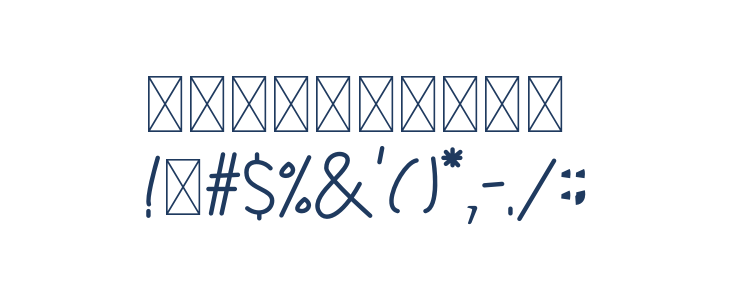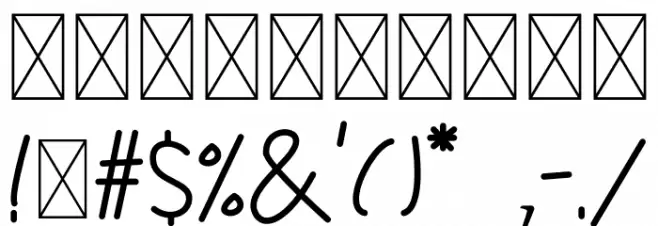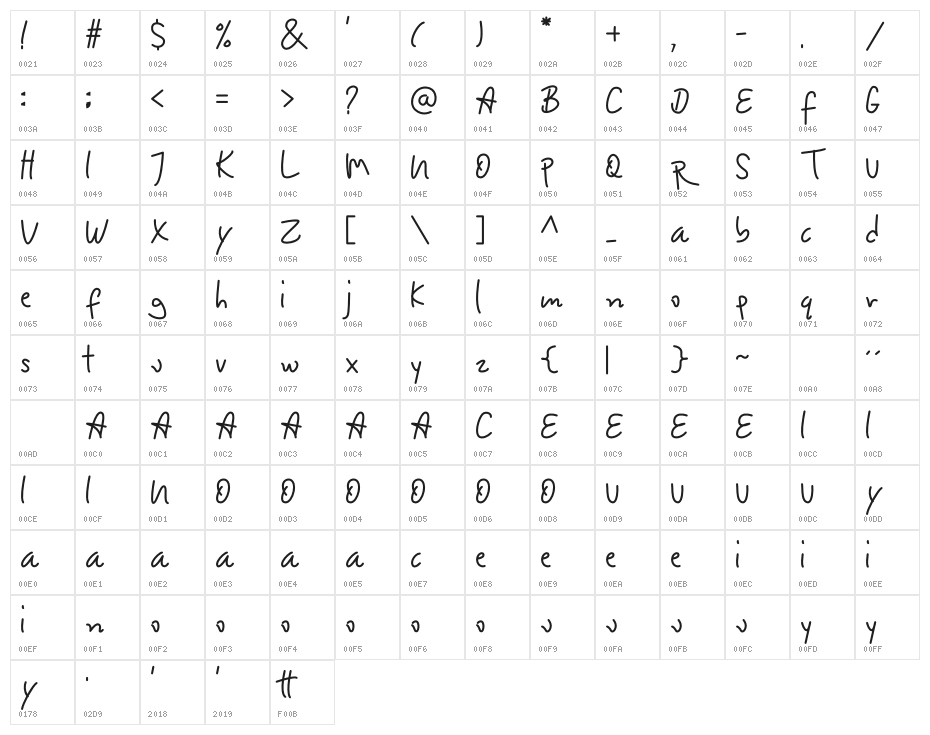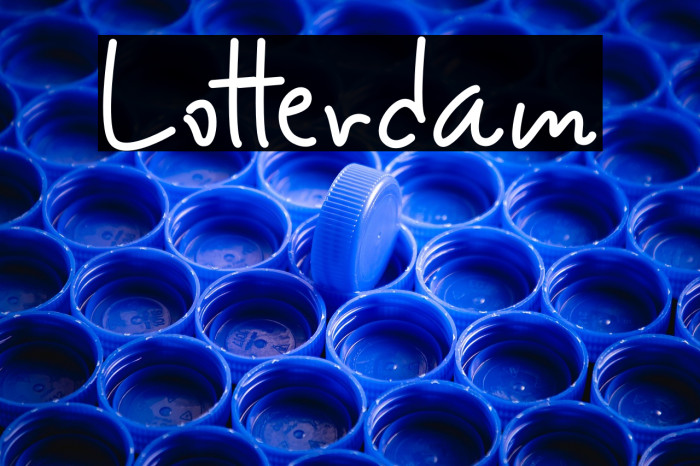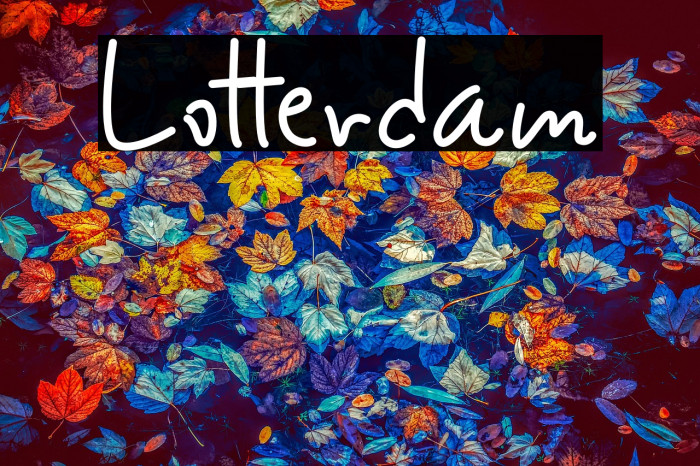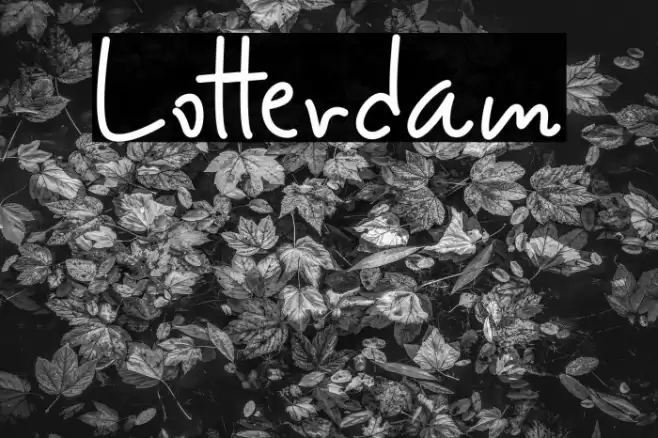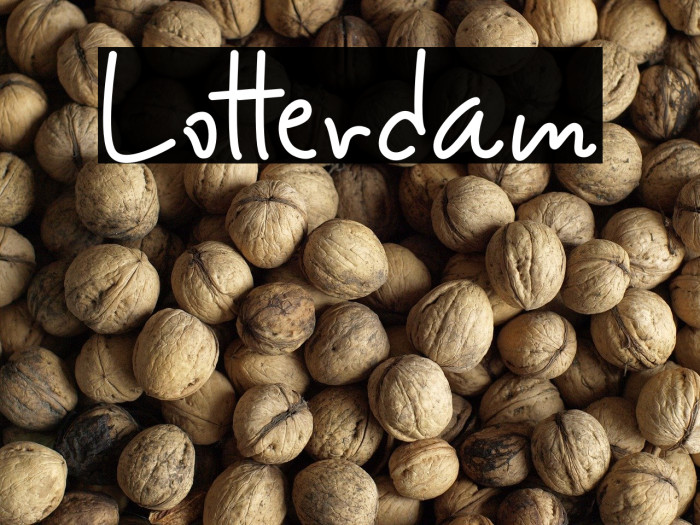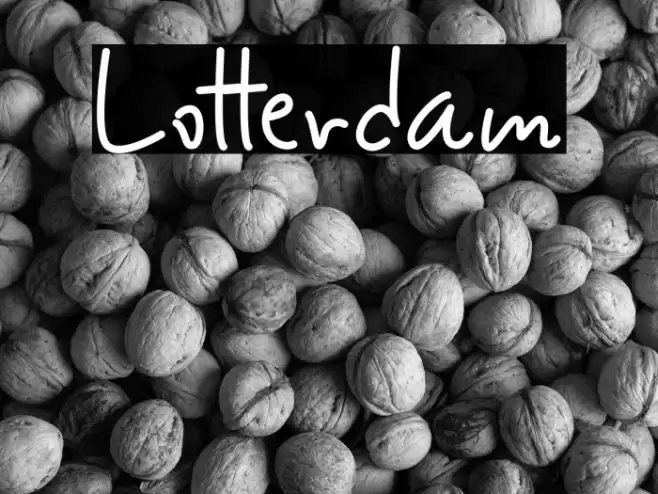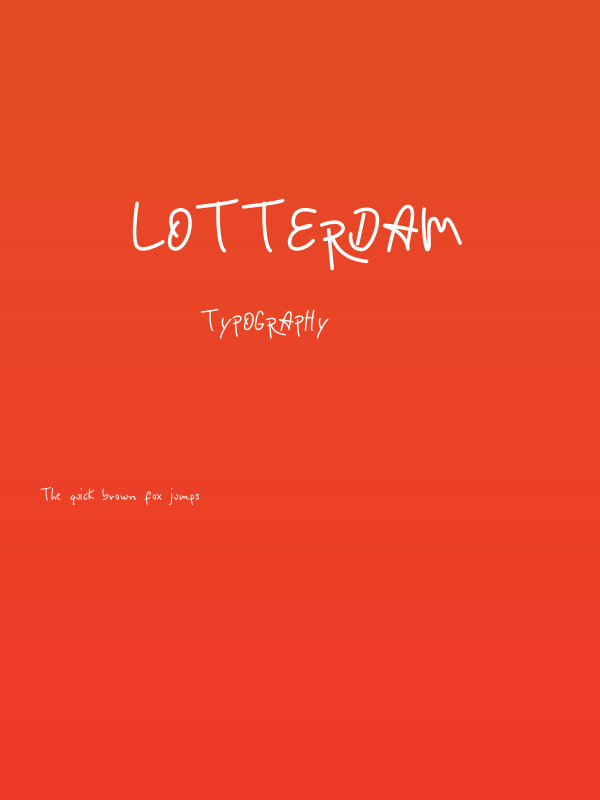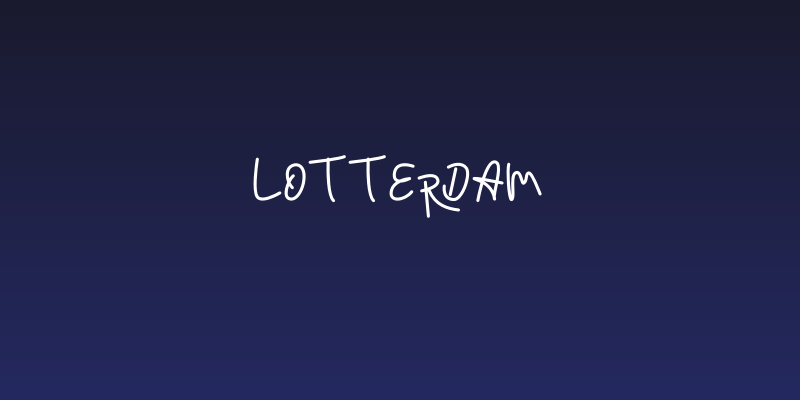
Lotterdam Font
Lotterdam Description
This font features a playful and casual handwritten style, characterized by its fluid and slightly irregular strokes. The uppercase letters are bold and expressive, while the lowercase letters maintain a consistent flow, adding a touch of whimsy. The font's overall appearance is informal, making it ideal for projects that require a personal or creative touch. The characters are well-spaced, ensuring readability, and the font includes a variety of special characters, enhancing its versatility. Its unique style makes it suitable for artistic and informal applications.
| Use Case | Headlines, Creative projects, Informal communications |
| Proposed Projects | Ideal for greeting cards, invitations, personal blogs, and creative branding projects. |